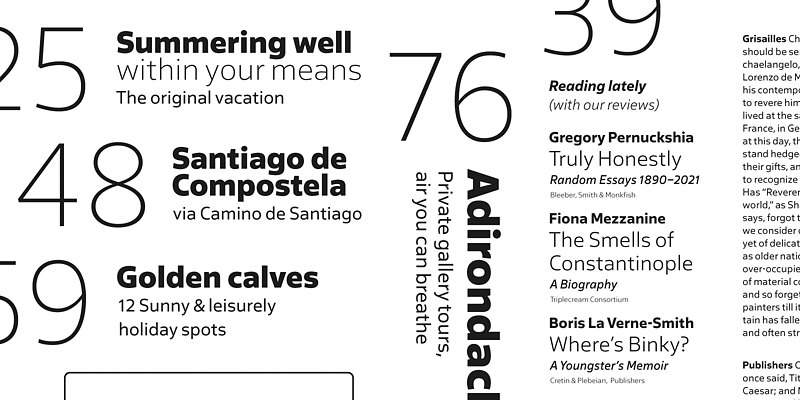
MVB Salis Font Free Download
MVB Salis Font Free Download is a clean and contemporary sans-serif typeface that strikes a balance between modern minimalism and warm humanist touches. With its open letterforms, smooth curves, and thoughtful proportions, this font is ideal for branding, editorial design, digital interfaces, and corporate communications where clarity and elegance are key.
MVB Salis offers multiple weights, making it versatile for both headlines and body text. Whether you're working in Adobe Illustrator, Figma, or Canva, it integrates seamlessly into your workflow, offering a sleek and readable solution across print and web platforms.